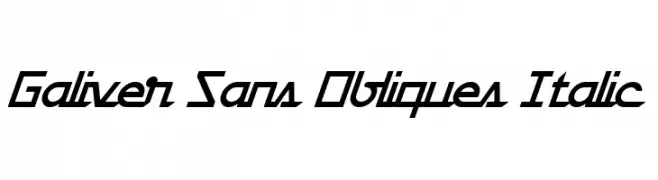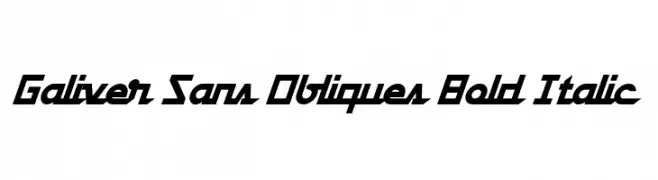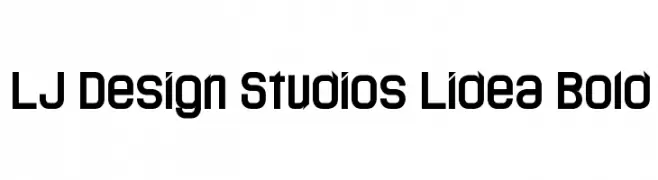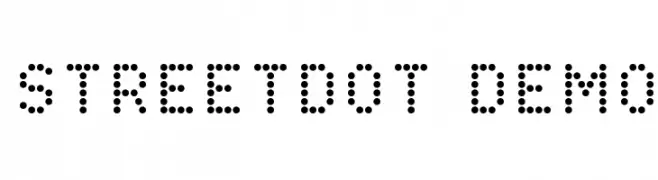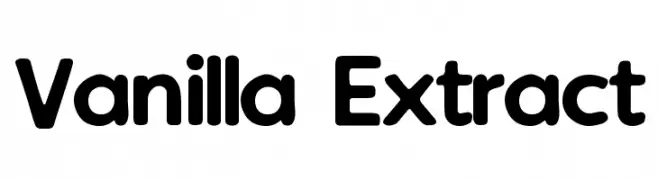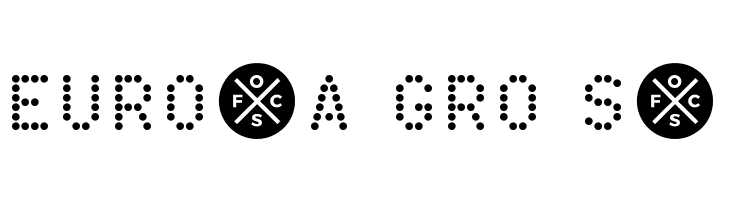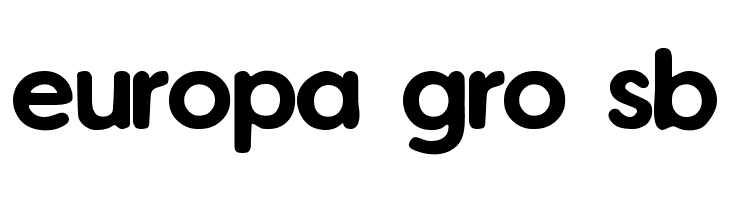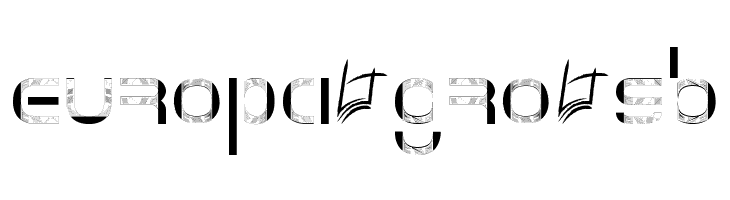
( JFType )
A bold, italicized font with angular, futuristic characters.
( JFType )
A bold, italicized sans-serif font with a modern oblique style.
( K-Type - www.k-type.com )
A bold, italicized sans-serif font with a modern and impactful design.
( LJ Design Studios - www.ljdesignstudios.com )
A bold, geometric font with a modern and futuristic design.
( LJ Design Studios - www.ljdesignstudios.com )
A modern, geometric font with clean lines and a structured appearance.
( LJDS - ljdesignstudios.es.tl )
A modern, geometric font with bold lines and intricate patterns.
( London's Letters - www.londonsletters.com/ )
A bold, geometric font with sharp edges and uniform strokes, ideal for impactful design.
( Out Of Step Font Company - outofstepfontco.com )
A modern, dotted font perfect for creative and playful designs.
( Roger White - web.archive.org/web/20120416090521/www.rogersfonts.org.uk/ )
A modern, italicized font with a sleek and dynamic style.
( Shara Weber - sharasfonts.com )
A bold, rounded sans-serif font with smooth curves and uniform strokes.